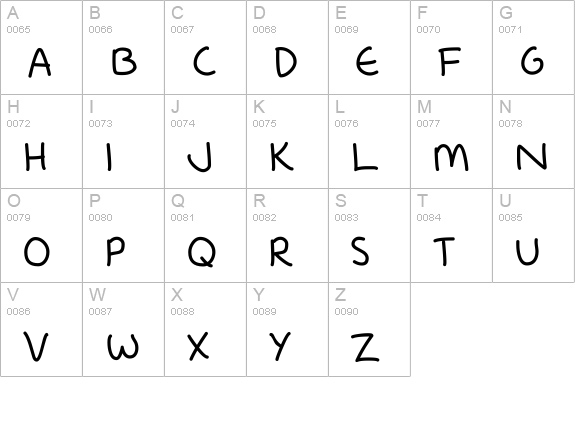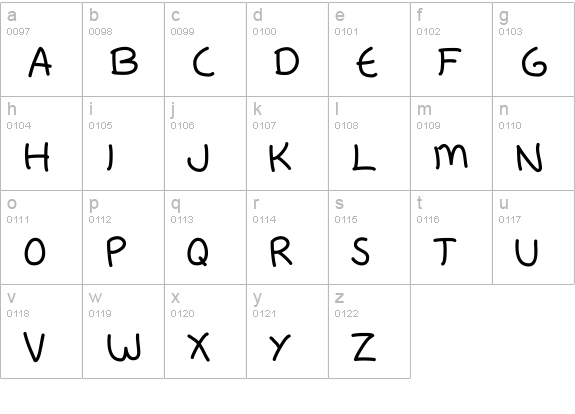
Fredfont Font Details
Fredfont is a versatile and contemporary font that effortlessly combines elegance with modernity. This font exudes a sense of sophistication and charm, making it perfect for a wide range of design projects. With its clean lines and stylish curves, Fredfont is sure to make a statement and capture the attention of viewers. What sets Fredfont apart is not only its stunning aesthetics but also the fact that it is completely free to download. That's right - you can easily access this exquisite font at FontsMarket.com without any cost. Whether you are working on a branding project, creating invitations, designing posters, or simply looking to elevate your graphic designs, Fredfont is the perfect choice. Download Fredfont today and add a touch of class to your projects with this exceptional font that is both visually appealing and freely available for your creative endeavors.